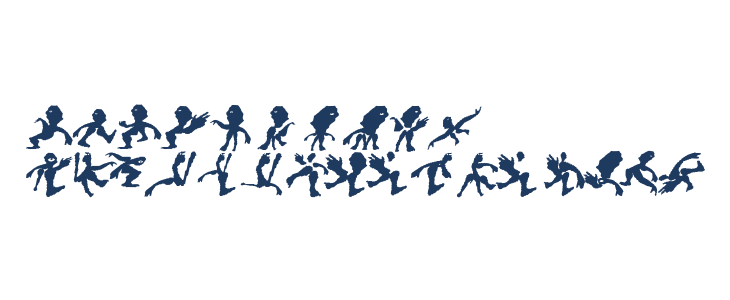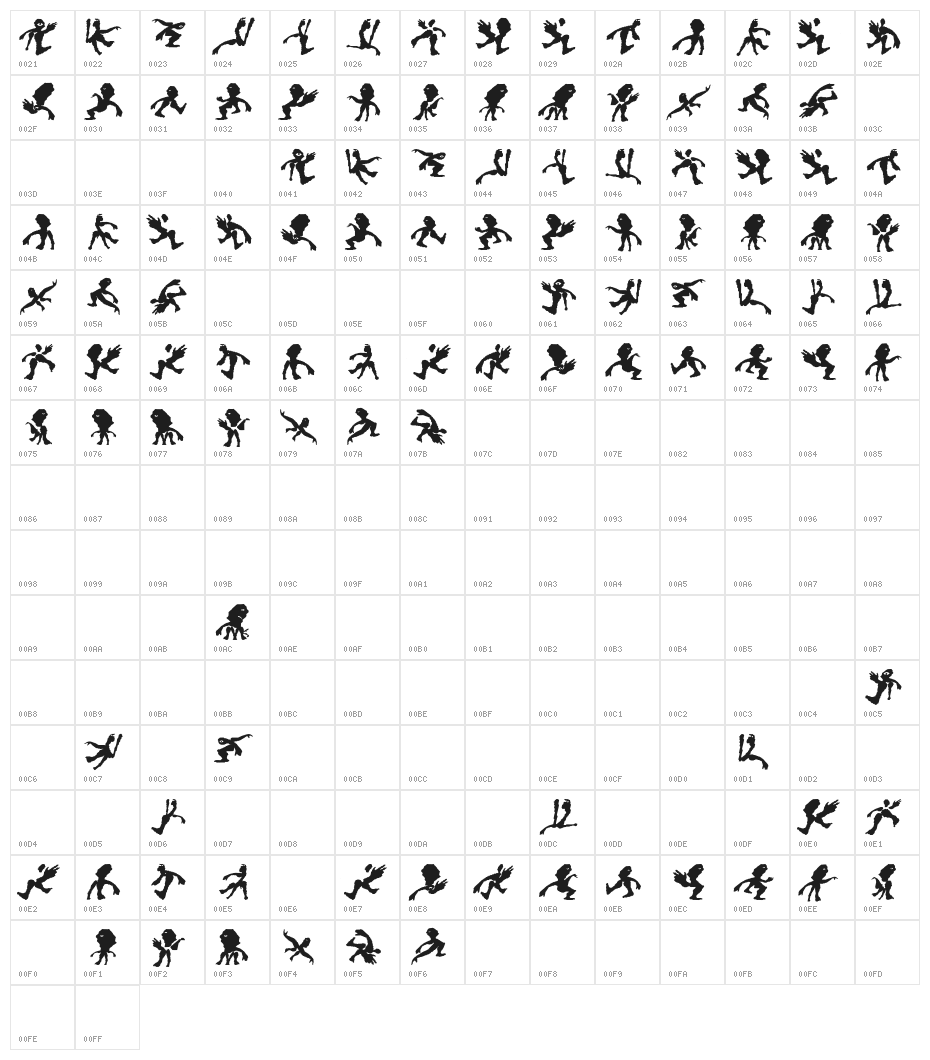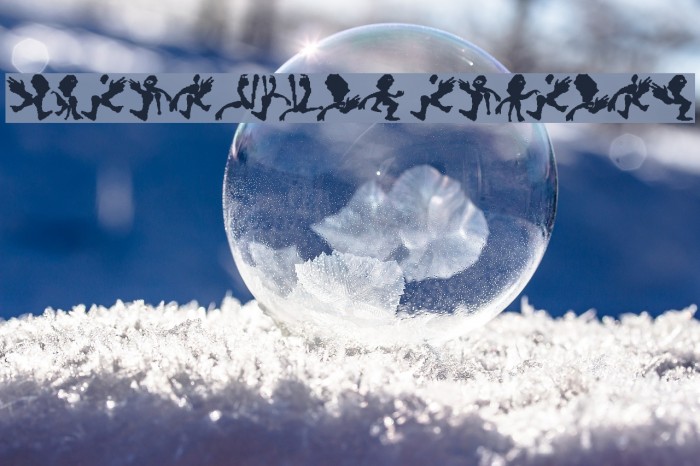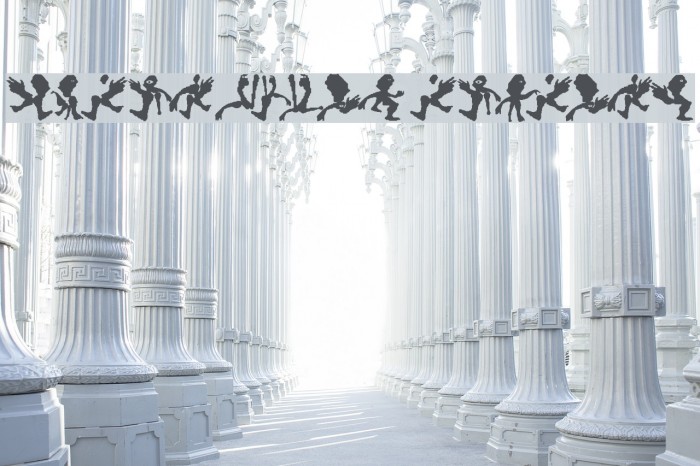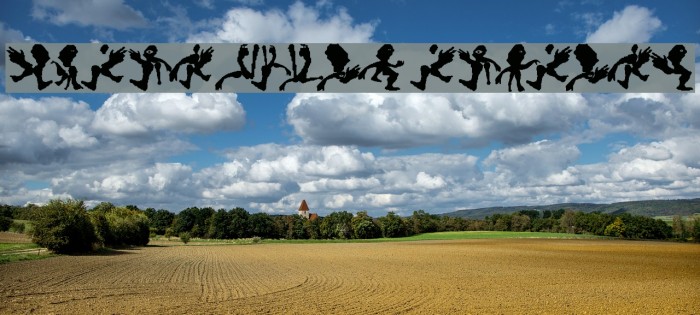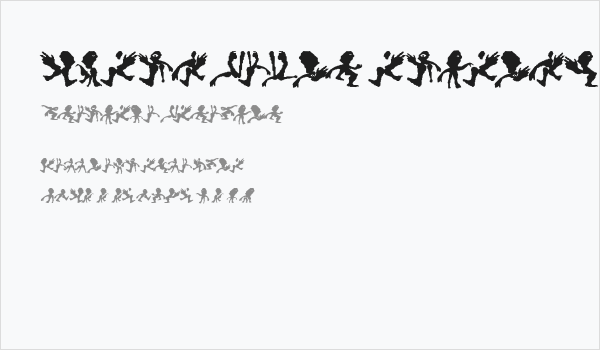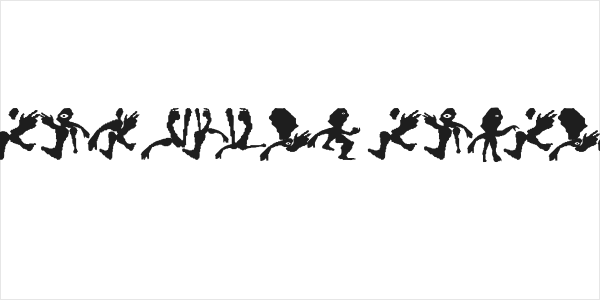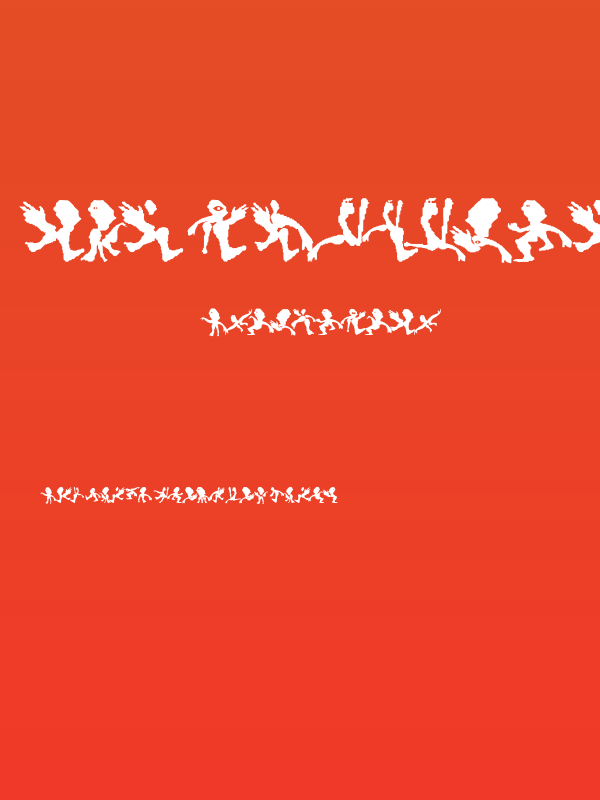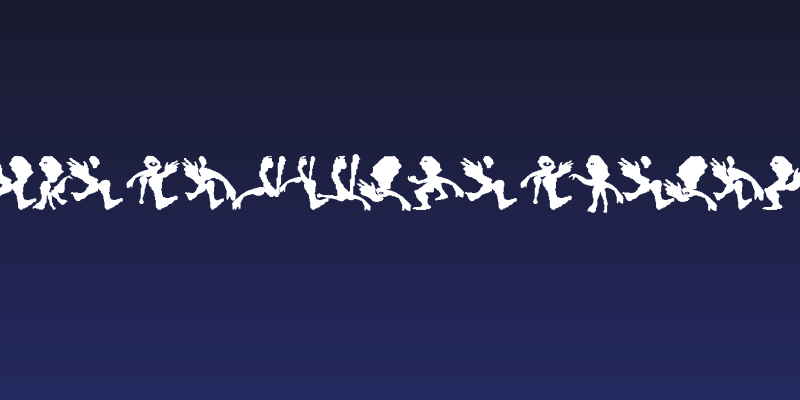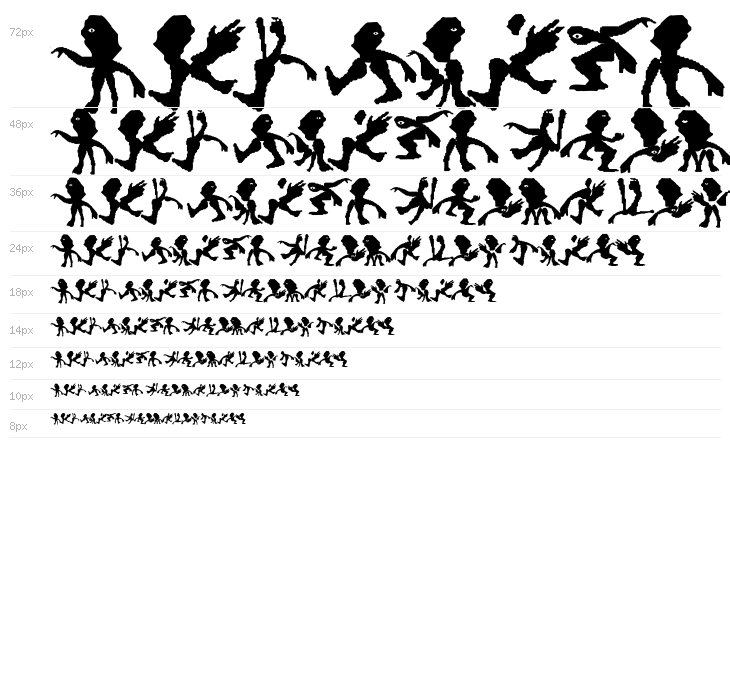
HumanDeformations Font
HumanDeformations Description
A highly abstract and illustrative set of glyphs resembling distorted human silhouettes in various dynamic poses, lacking traditional letterforms or numerals, with each character appearing as a unique figure rather than a standard typographic symbol.
| Overall Style | Decorative, Abstract, Artistic |
| Use Case | Display, Art installations, Experimental design |
| Proposed Projects | Experimental posters, avant-garde art projects, album covers, conceptual branding, visual storytelling. |